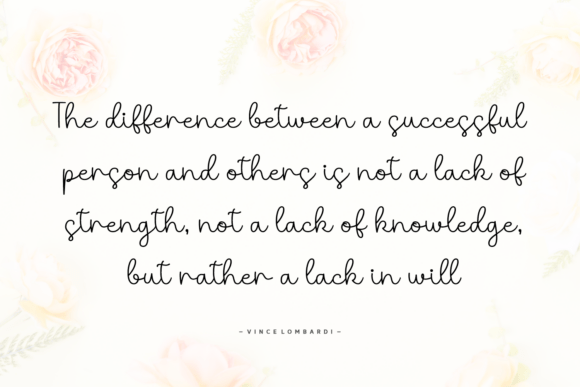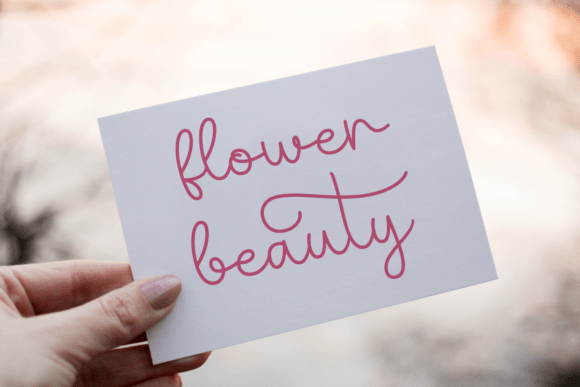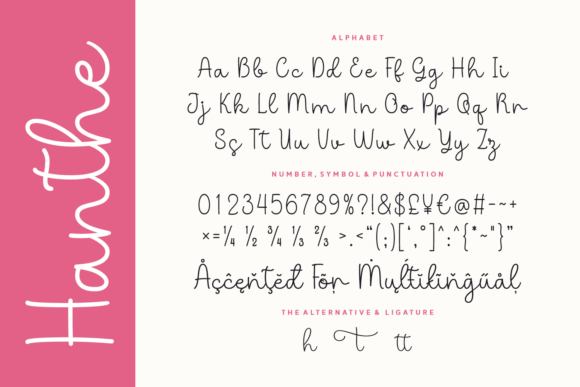
Introduction to Hanthe Font
As a designer, there’s nothing quite like the thrill of finding the perfect font to bring your creative project to life. You’ve spent hours agonizing over the perfect combination of style and substance, only to have it all fall into place with a single, elegant typeface. For many designers, that font is Hanthe Font – a playful and polished monoline script font that radiates charm and friendliness.
With its flowing ligatures and smooth curves, Hanthe Font is the ultimate design resource for any creative endeavor. Whether you’re working on a high-quality branding project, a modern quote, or a product packaging design, Hanthe Font adds a delightful personality to your work. And the best part? It’s available for free download, complete with a transparent background to give you complete design flexibility.
For designers, having access to high-quality fonts like Hanthe Font is invaluable. It allows you to focus on the creative aspects of your project, rather than getting bogged down in tedious design decisions. And with its versatile and friendly feel, Hanthe Font is sure to become a go-to design choice for any project that requires a touch of whimsy and personality.
Key Features of Hanthe Font
- High-quality design resource suitable for creative projects, offering a unique and elegant aesthetic.
- Unique characteristics, such as intricate details and subtle textures, add an extra layer of depth and visual interest to your designs.
Honest Review: Hanthe Font
I recently had the chance to work with the Hanthe Font, and I must say, it’s a high-quality design resource that has the potential to elevate any creative project. One of the things that works well is its clean and elegant design, making it perfect for a wide range of applications.
- ✨ The font’s high level of detail and intricate design elements make it a standout choice for designers looking to add a touch of sophistication to their work.
- ✨ The transparent background option allows for seamless integration with any background image or color, giving designers more creative freedom.
However, there are a few limitations to consider. The font may not be suitable for very small text sizes, as it can become difficult to read.
- ⚠️ The font may require some adjustments to be made in terms of kerning and spacing, particularly in longer blocks of text.
Common Use Cases for Hanthe Font
The Hanthe Font is perfect for a wide range of design projects, including business cards, brochures, and websites. Its elegant design and high quality make it a popular choice for creative professionals and DIY designers alike.